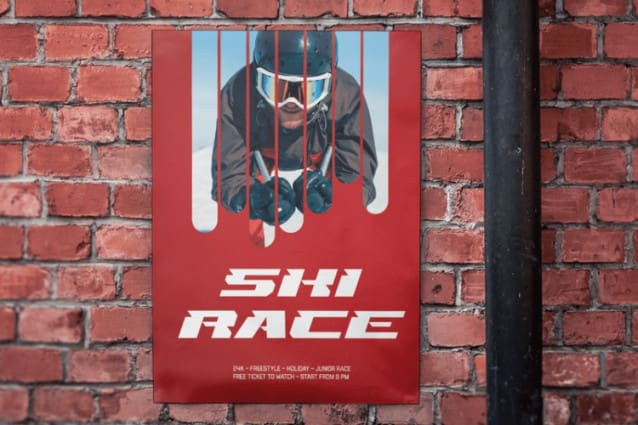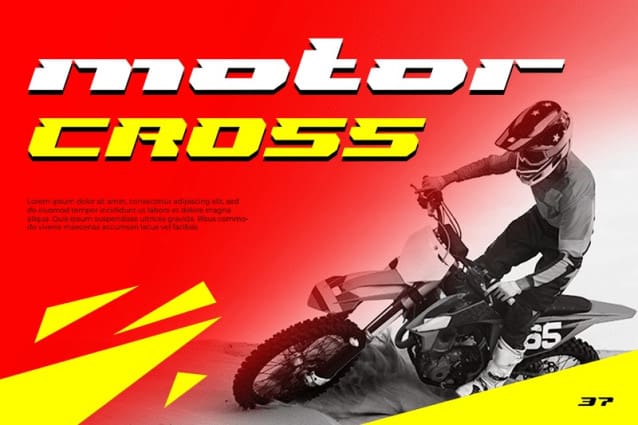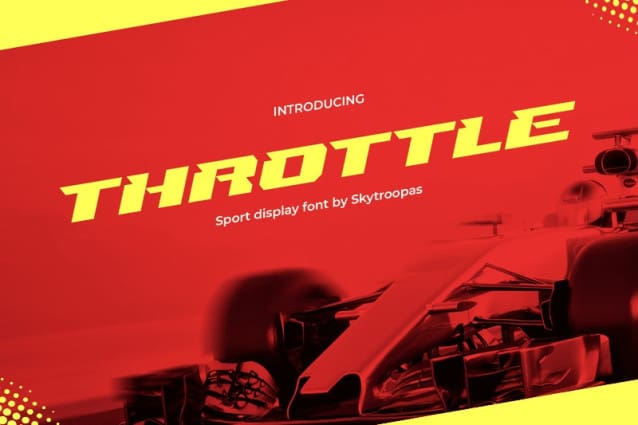
Throttle Display Font
Throttle Display Font is a modern and futuristic racing sport font that perfectly captures the speed and adrenaline of racing. With sleek lines and a bold design, Throttle is the perfect choice for any racing game or competition. It’s also great for use in film, car, and promotional materials.
With its sleek and modern design, this display font exudes energy and speed, making it perfect for anything related to sports. Its clean lines and bold shapes also make it highly legible, ensuring your message is conveyed effectively.
Throttle Display is the perfect combination of style and function, and it’s sure to give your sports-related project that extra edge. So don’t wait; rev up your designs with Throttle Display today!